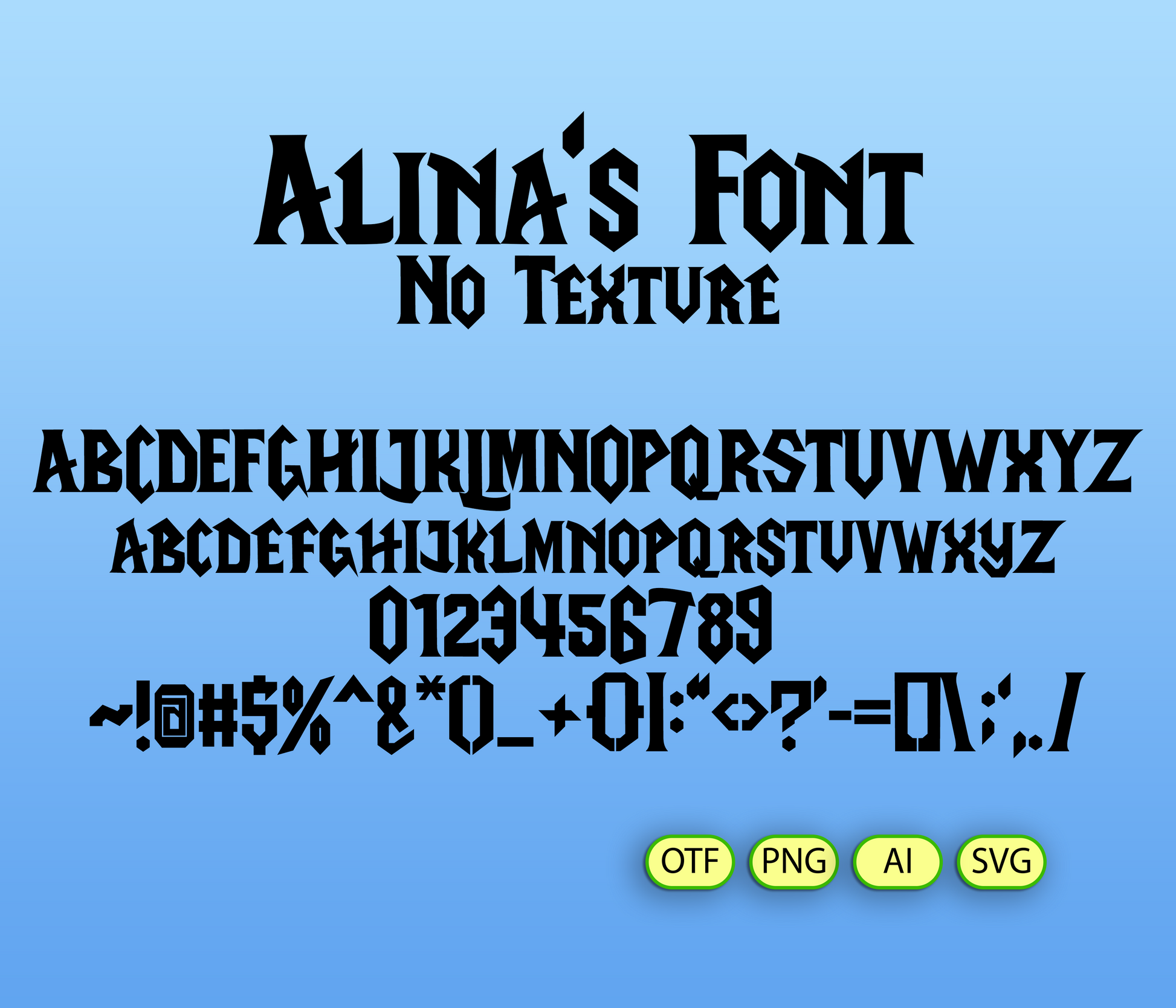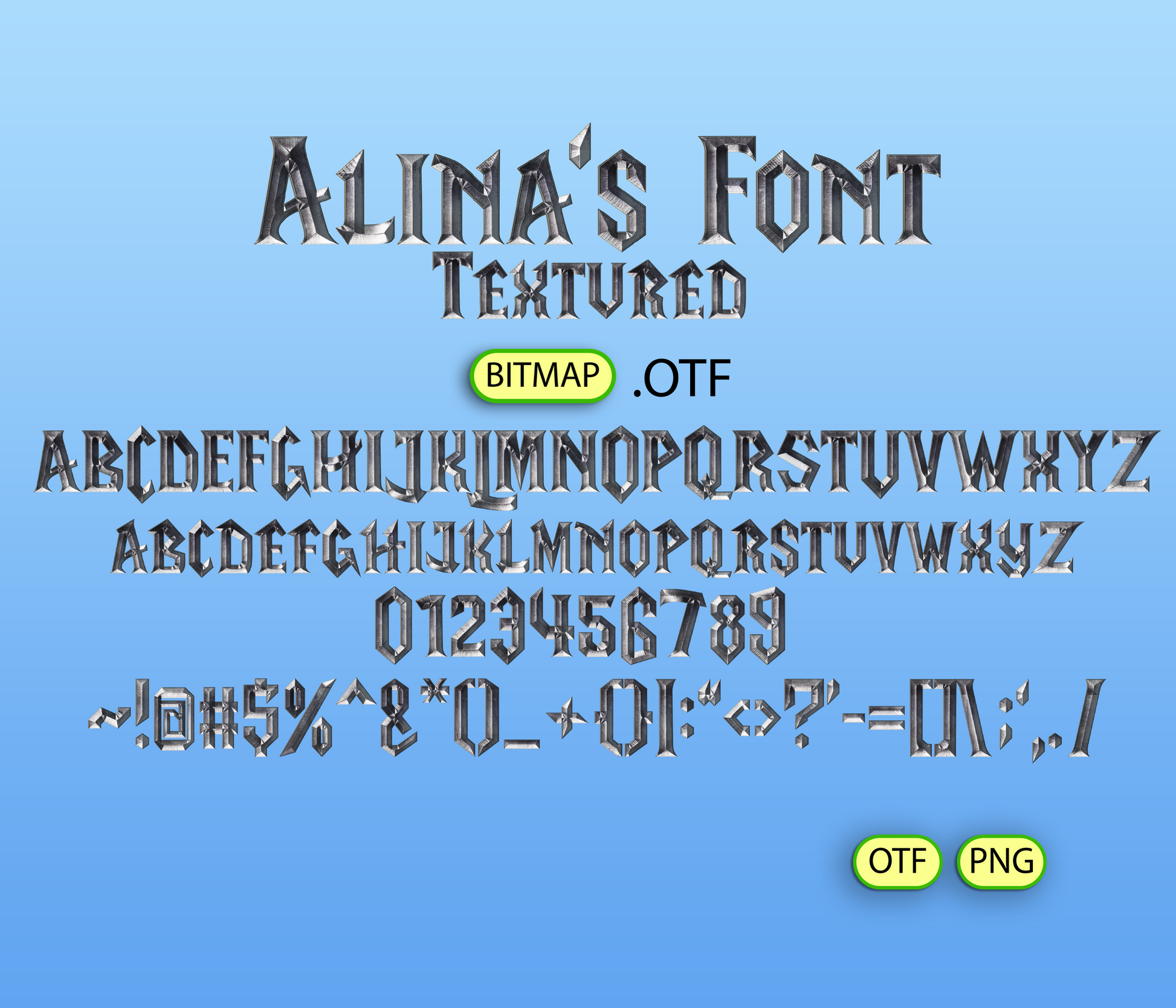
Fantasy Legends Font Textured
Embark on an Epic Quest with the Fantasy Legends Font
Delve into the expansive and mystical universe of a renowned fantasy game with our Fantasy Legends-inspired font, designed to capture the grandeur and complexity of an iconic gaming franchise. Ideal for fans, game developers, and content creators, this font ensures your projects resonate with the epic spirit of adventure and conflict.
This Fantasy Legends font features ornate, gothic-style characters with intricate detailing that reflects the medieval fantasy aesthetic of the game. Its bold, majestic forms are perfect for a variety of applications:
Our Fantasy Legends font not only celebrates the epic tales and intricate world-building of the franchise but also empowers you to bring the magic and drama of a mystical universe into your own creative endeavors. Whether you’re developing promotional materials, designing fan merchandise, or enhancing your digital content, this font lets you communicate with the power and majesty that fans expect. Ready to unleash the hero within your designs? This font is your key to unlocking a world of imagination and epic storytelling.